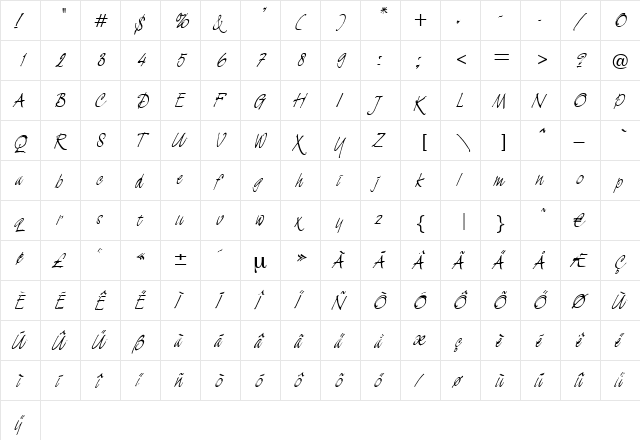
Lugano Regular Font Preview
Lugano Regular
Design Context for Lugano Typeface
Lugano is a composed and adaptable typeface that performs quietly and consistently across a wide range of design contexts.